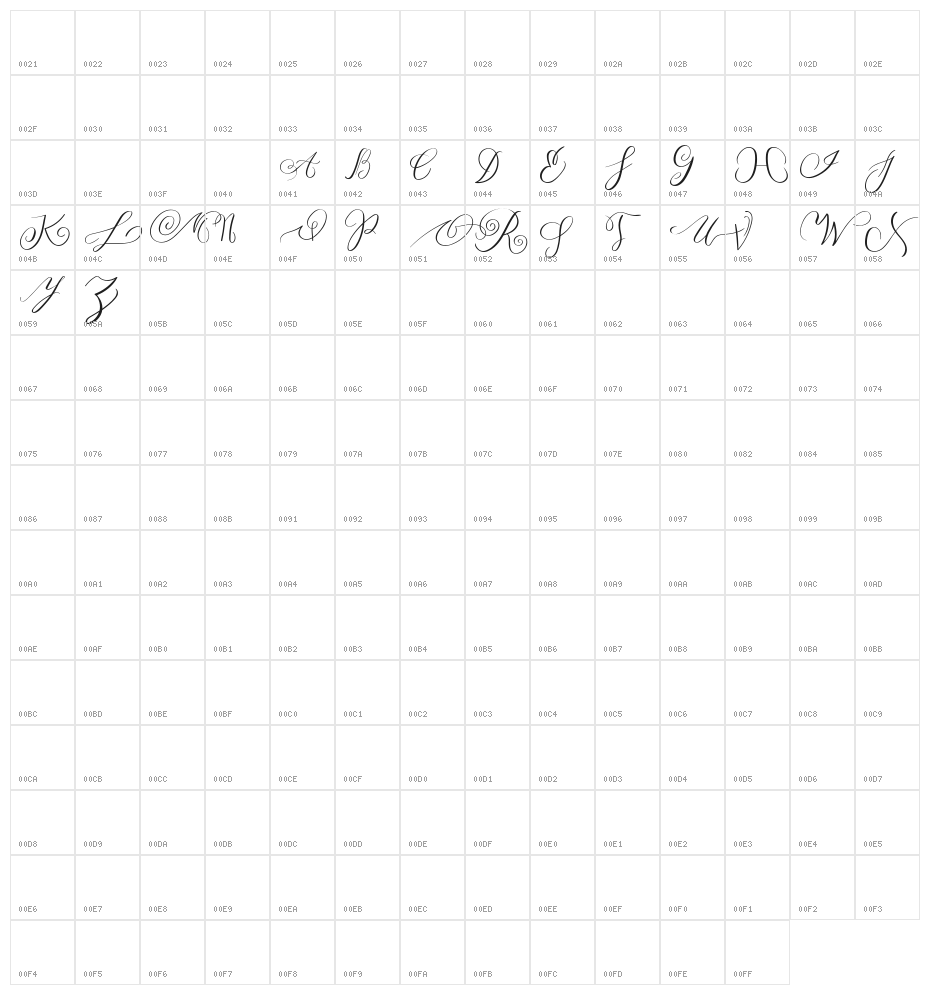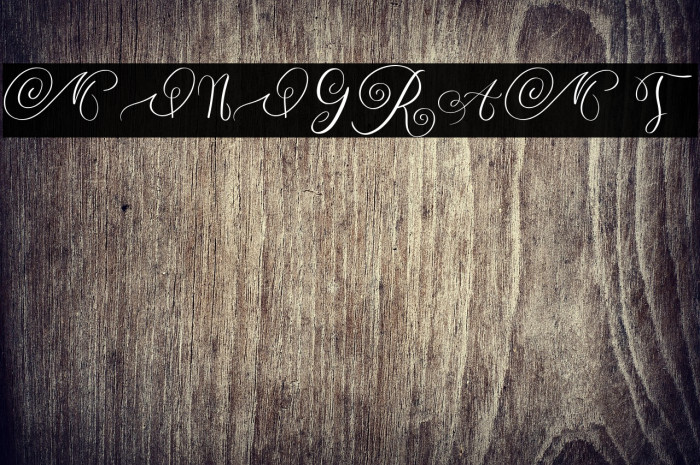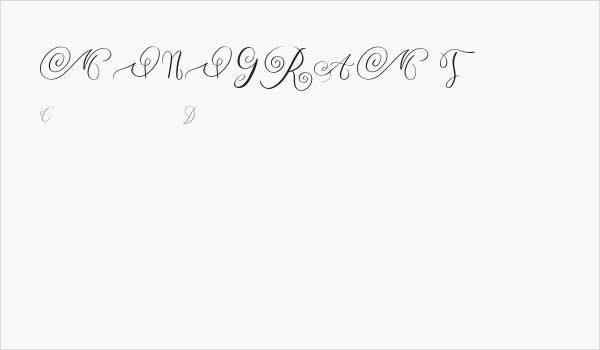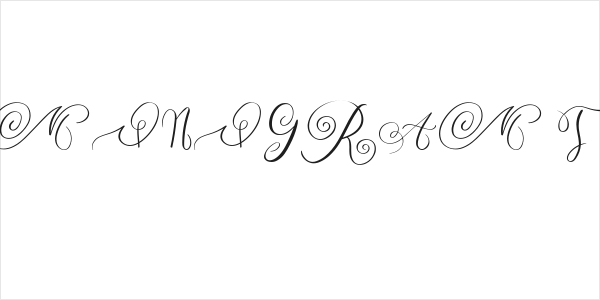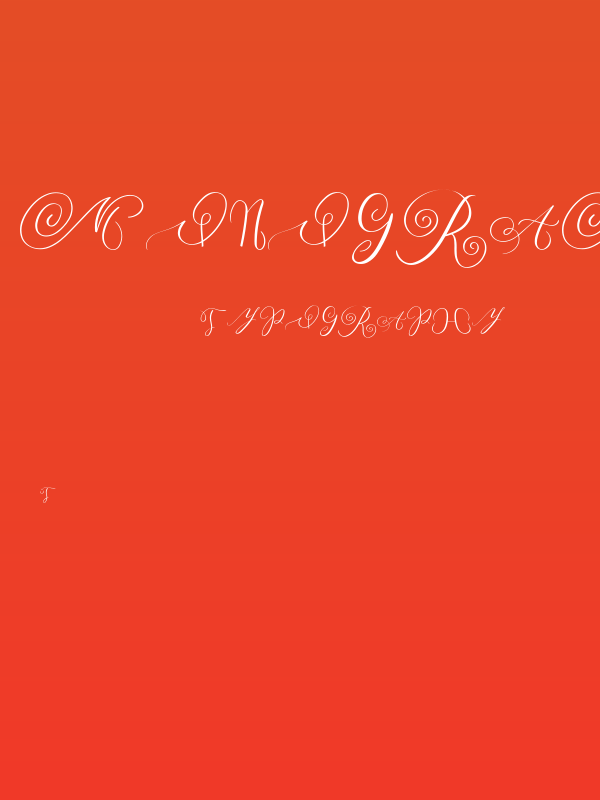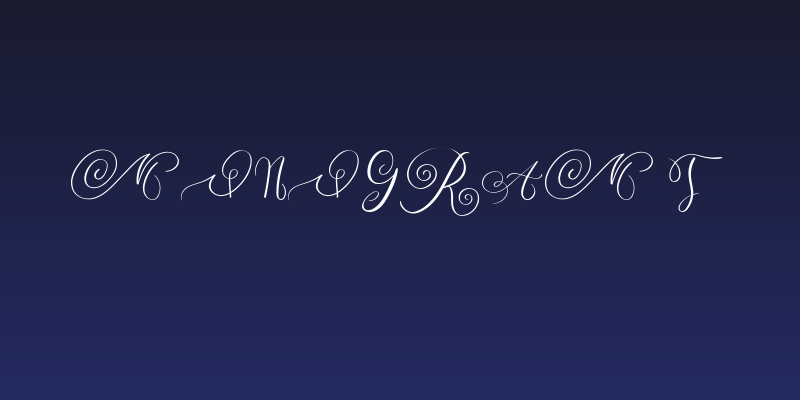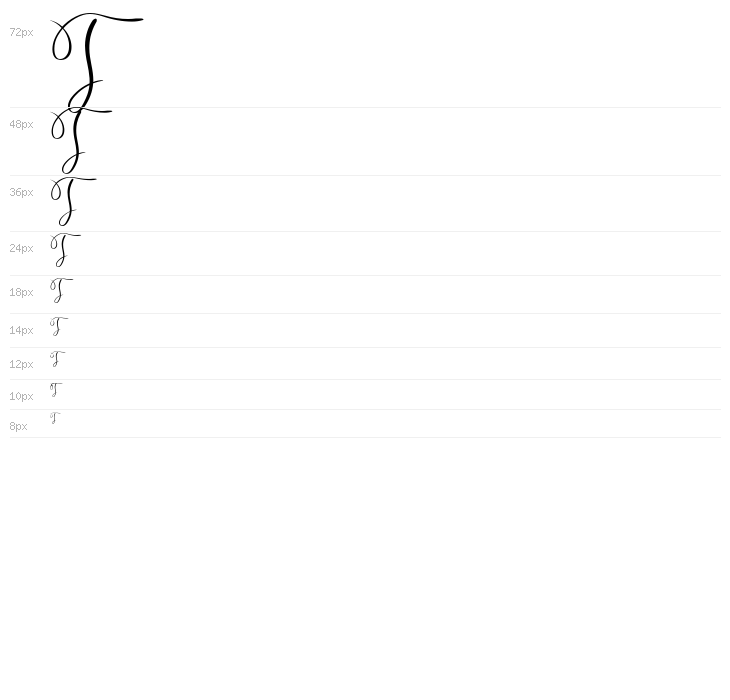
MONOGRAM T Font
MONOGRAM T Description
This font exudes elegance and sophistication, characterized by its intricate and flowing script style. Each letter is adorned with delicate swirls and loops, creating a sense of movement and grace. The uppercase letters are particularly ornate, with extended flourishes that enhance their decorative appeal. The font maintains a consistent stroke width, contributing to its refined and polished appearance. Its artistic flair makes it ideal for formal invitations, monograms, and branding that requires a touch of luxury and class.
| Use Case | Logos, Invitations, Monograms |
| Proposed Projects | Ideal for wedding invitations, luxury branding, monograms, and elegant stationery. |